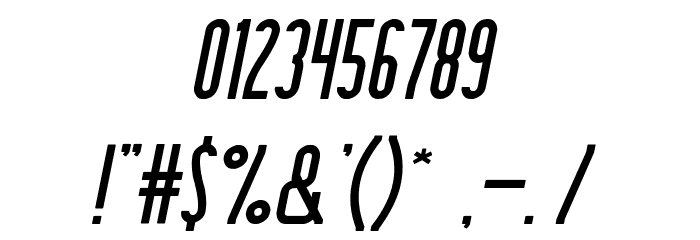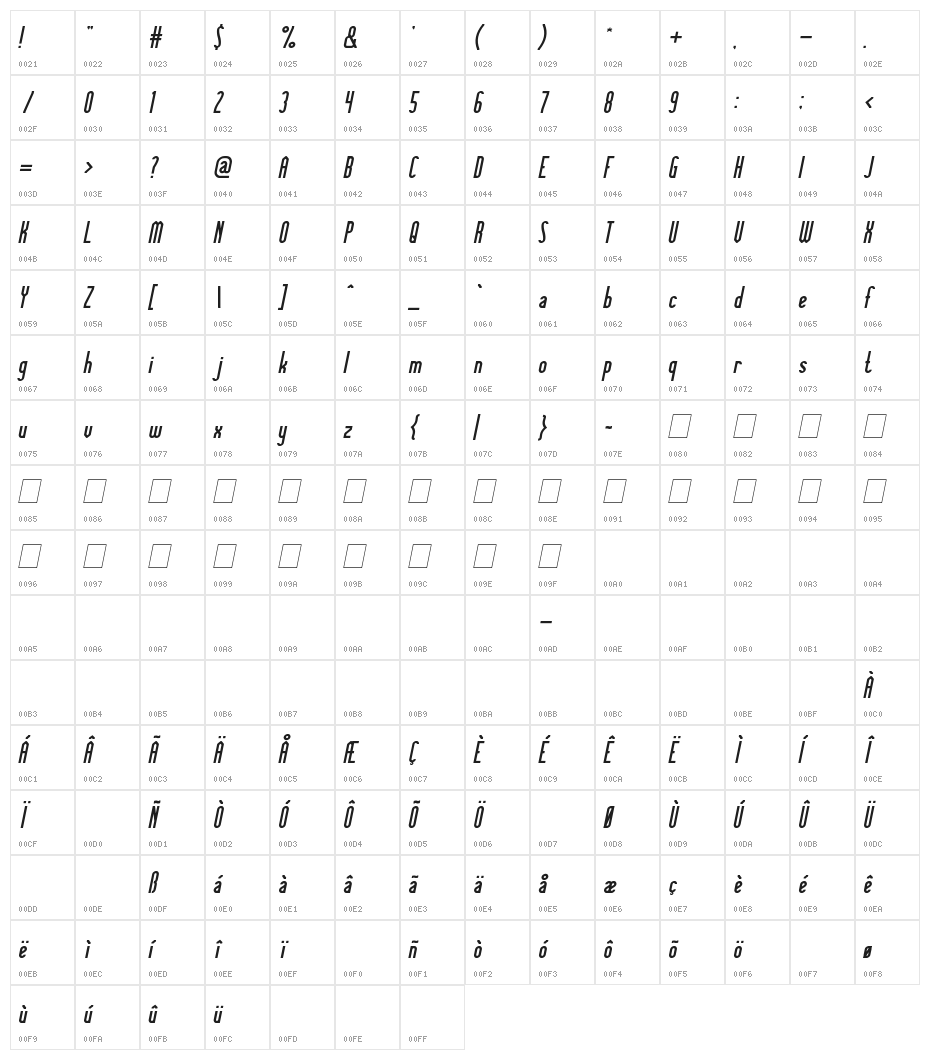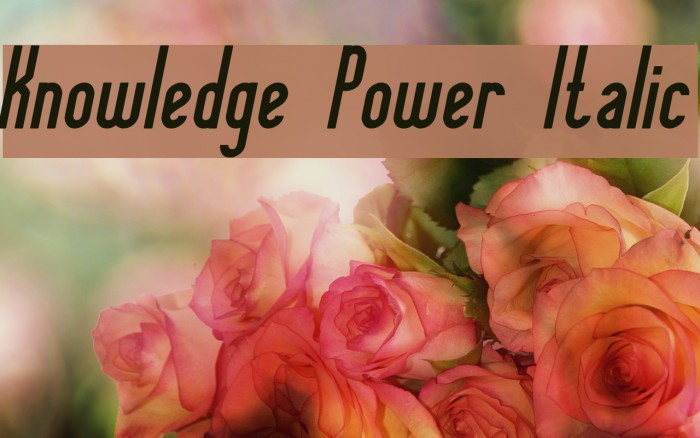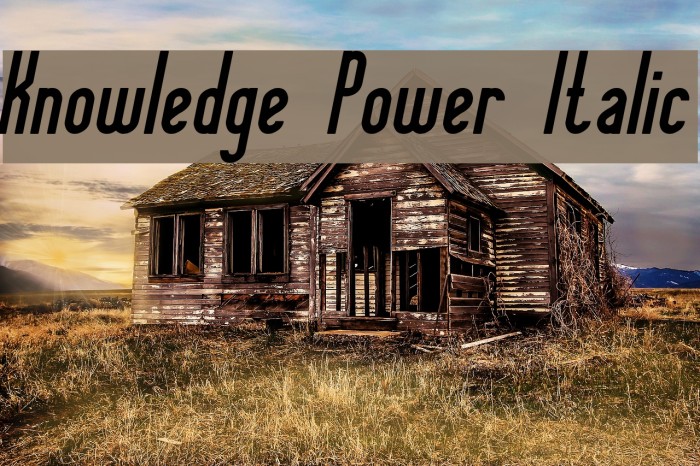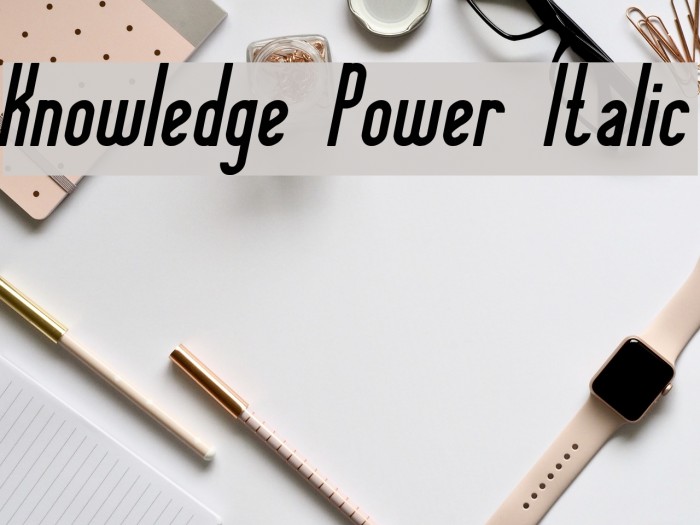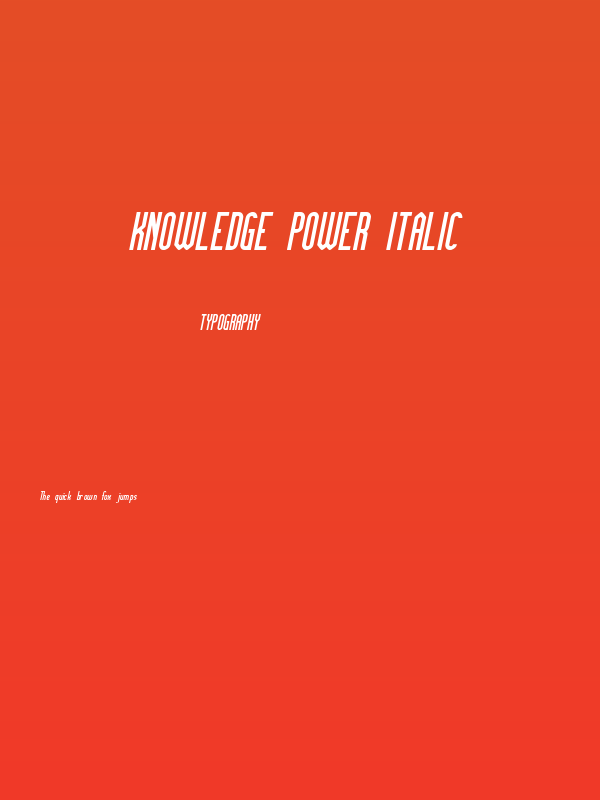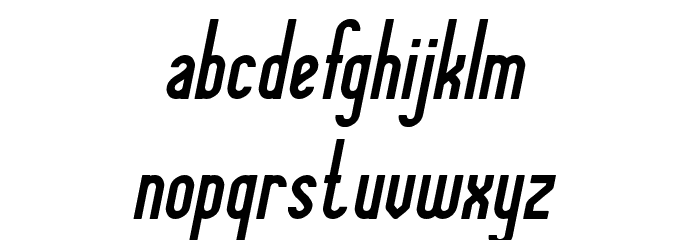
Knowledge Power Italic Font
Knowledge Power Italic Description
This font features a dynamic and energetic italic style, characterized by its elongated and slightly condensed letterforms. The strokes are consistent in thickness, providing a uniform appearance that enhances readability while maintaining a stylish flair. The uppercase letters are bold and commanding, while the lowercase letters maintain a cohesive flow, making it suitable for both headlines and body text. The numerals are clear and well-defined, ensuring legibility in various contexts. Special characters are thoughtfully designed to complement the overall aesthetic, making this font versatile for diverse applications.